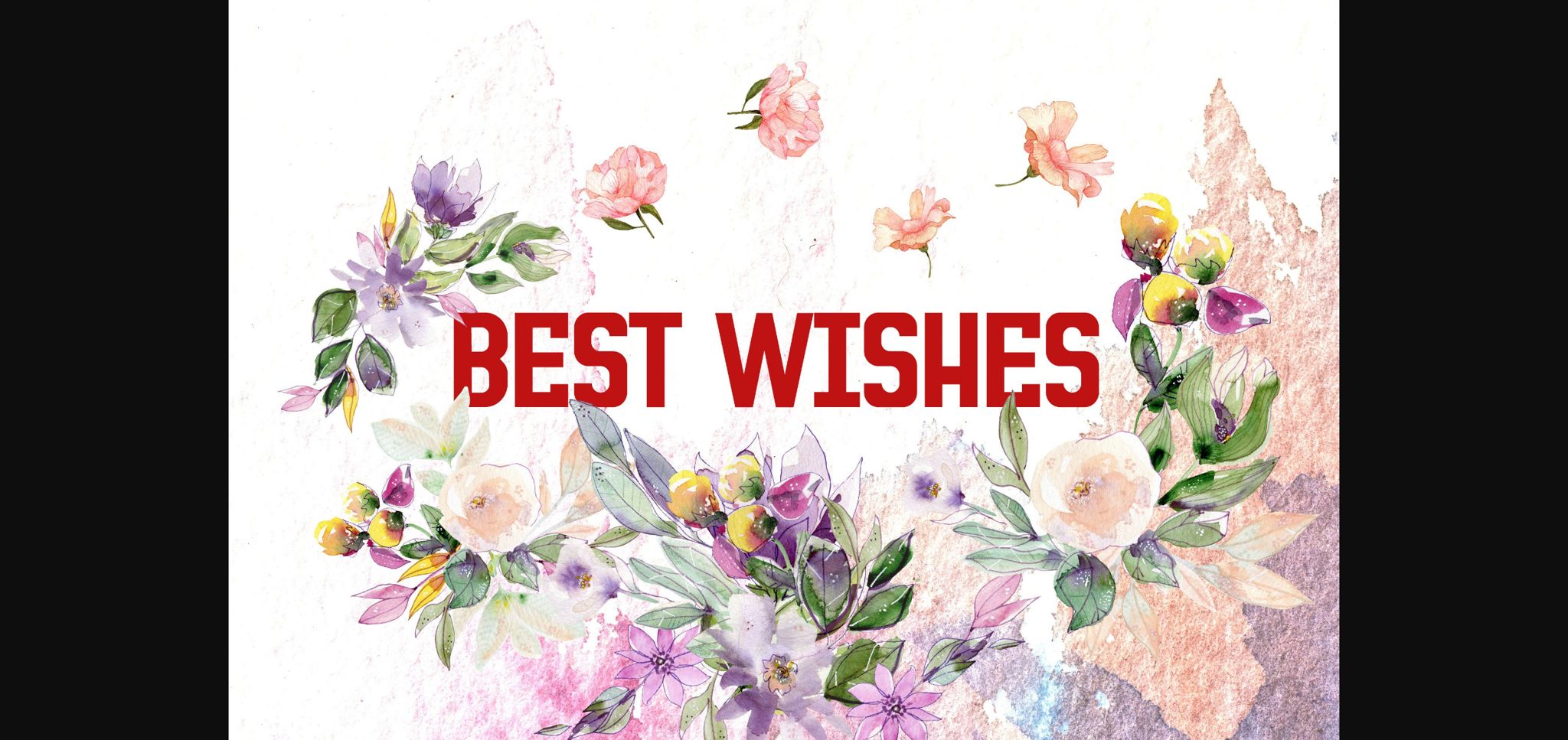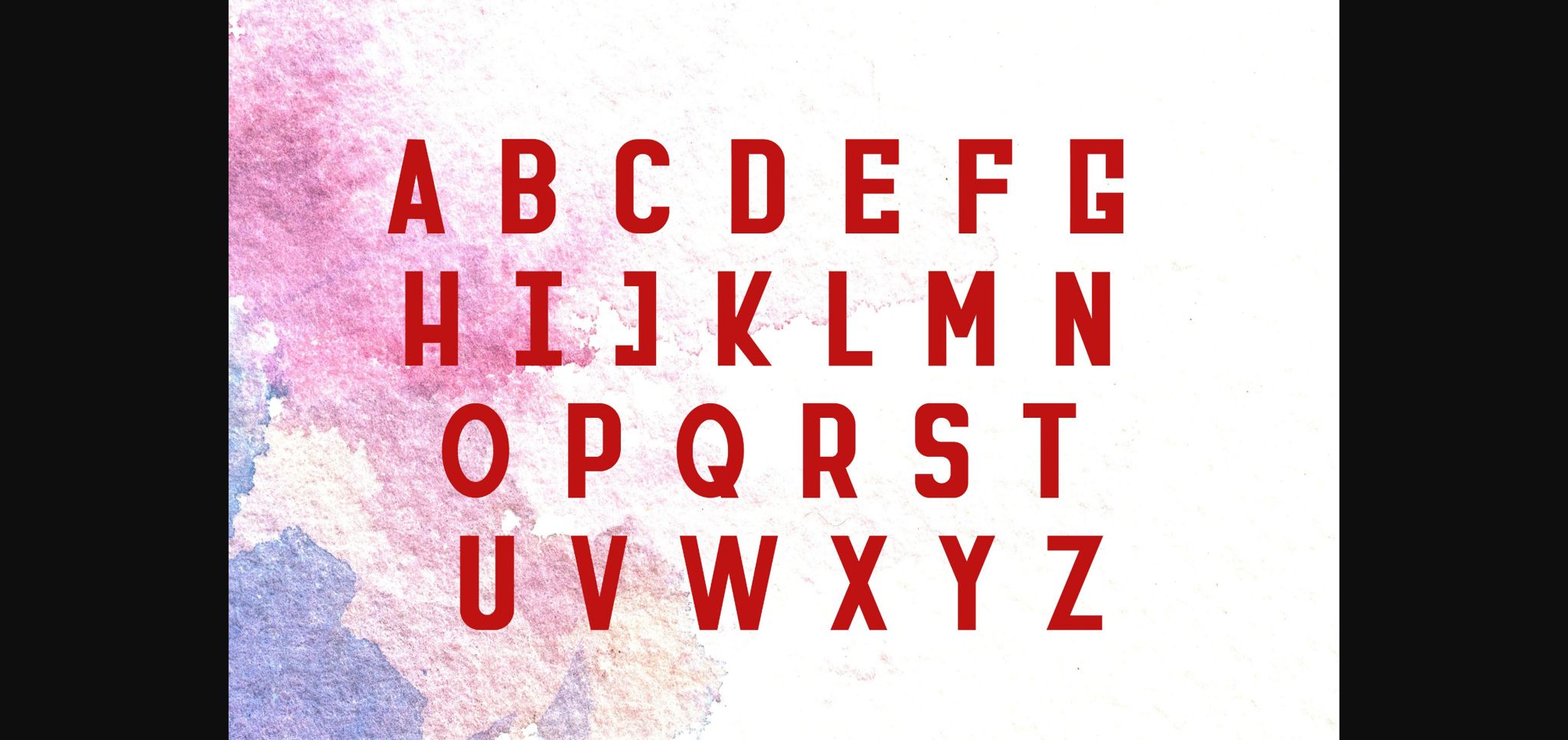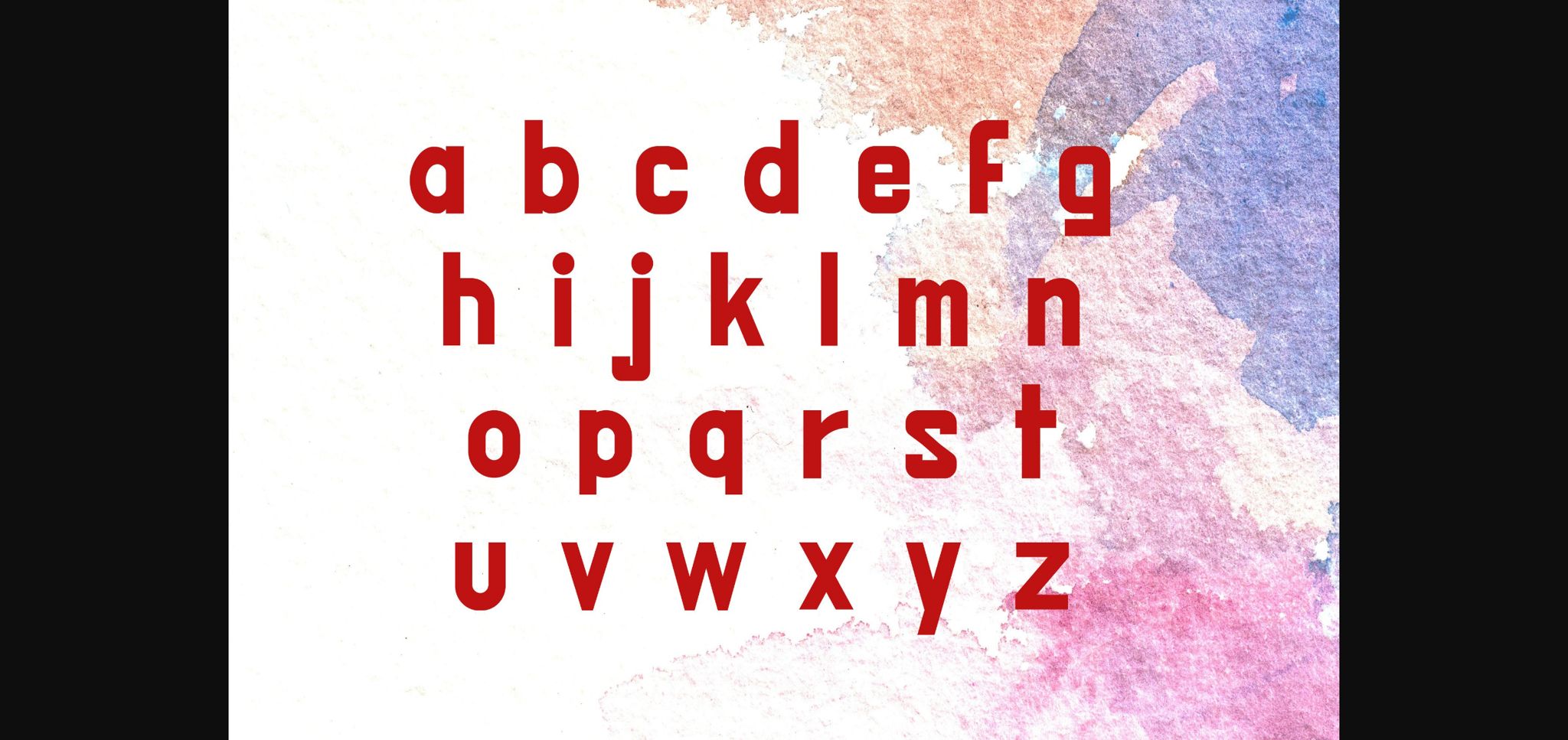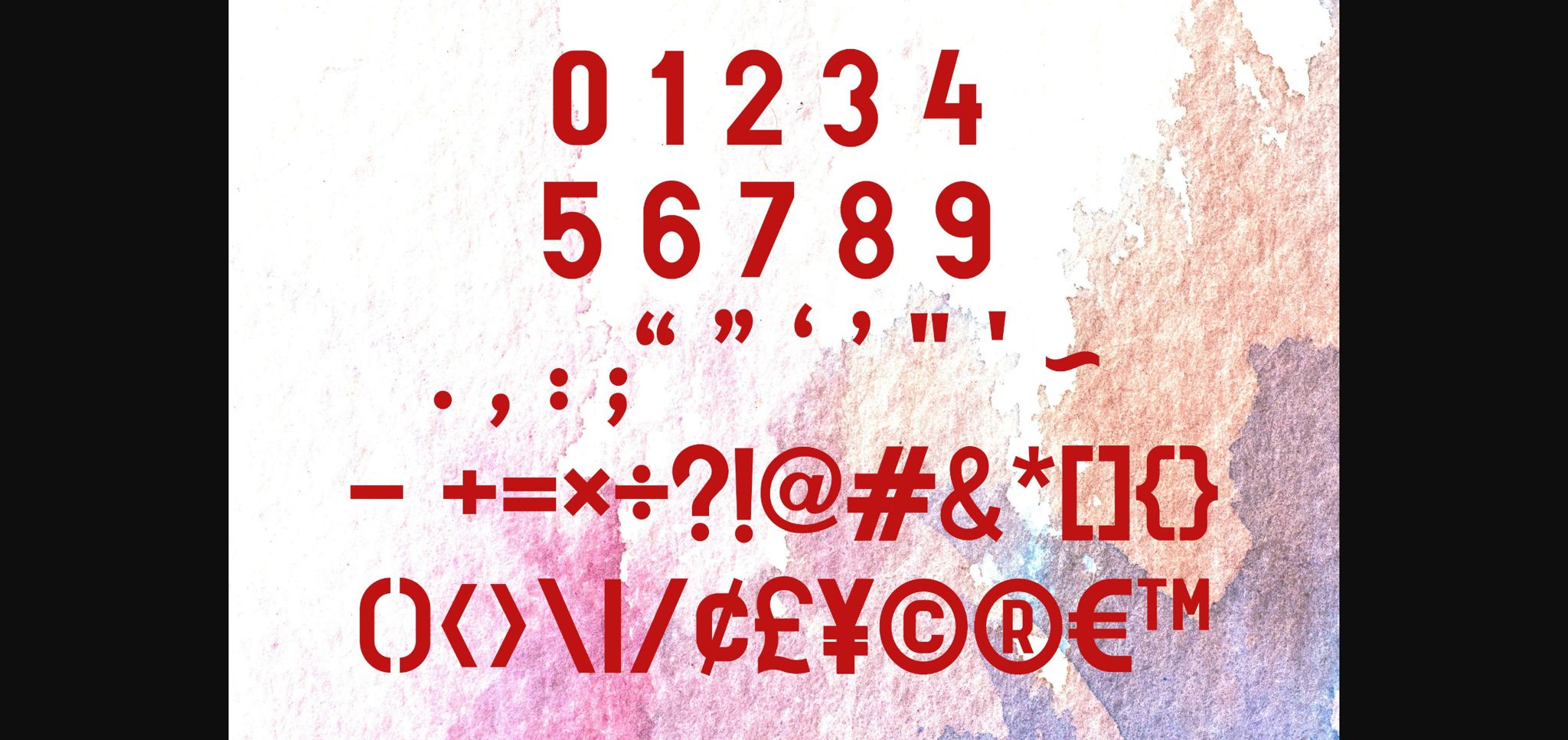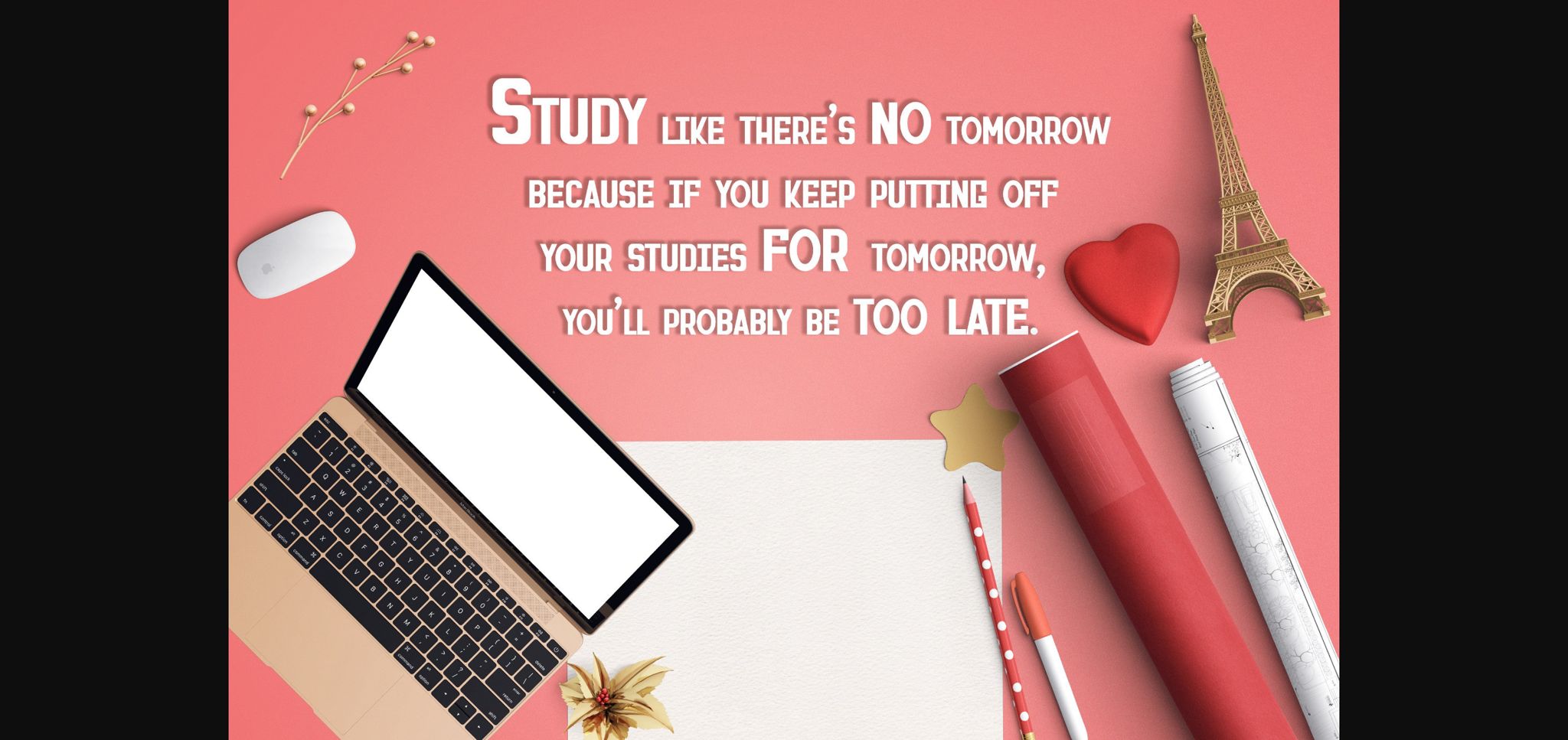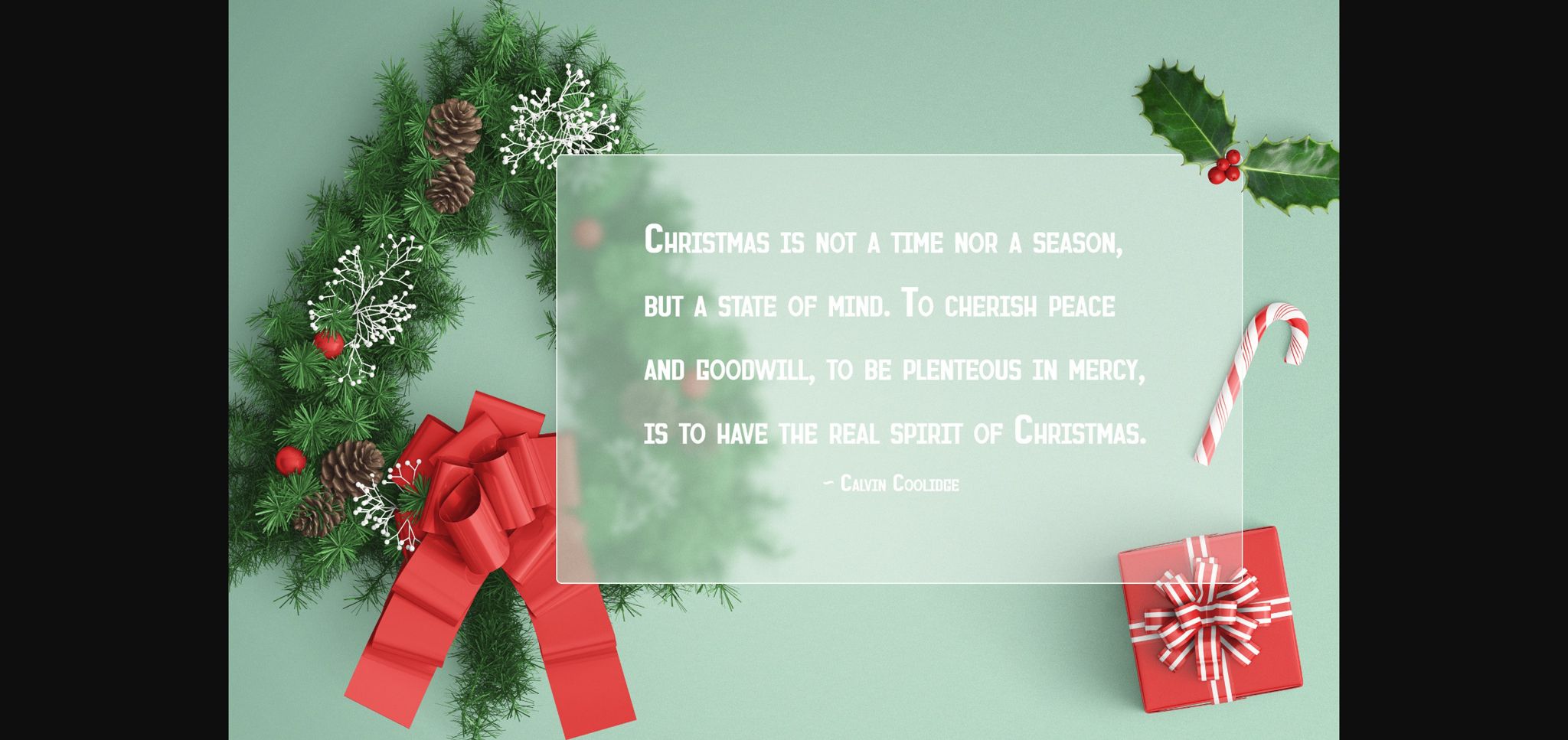
Best Wishes Font
About Best Wishes Font
Best Wishes is a modern and minimal sans serif font. It looks simple and works with a variety of concepts. This typeface can easily be matched to an incredibly large set of projects, so add it to your creative ideas and notice how it makes them stand out!